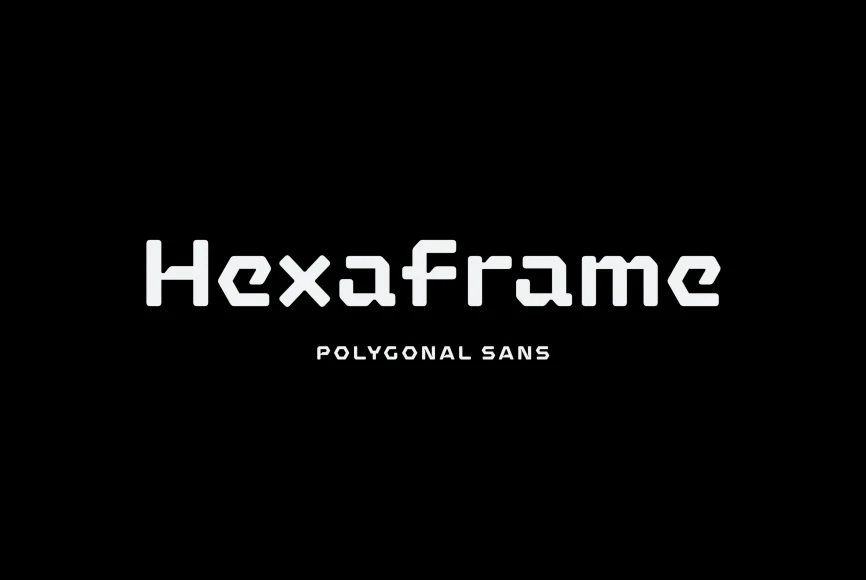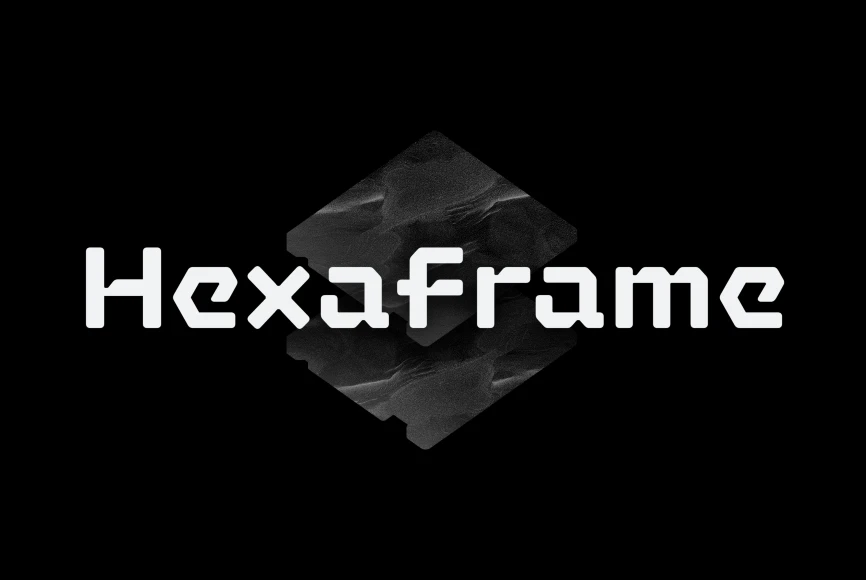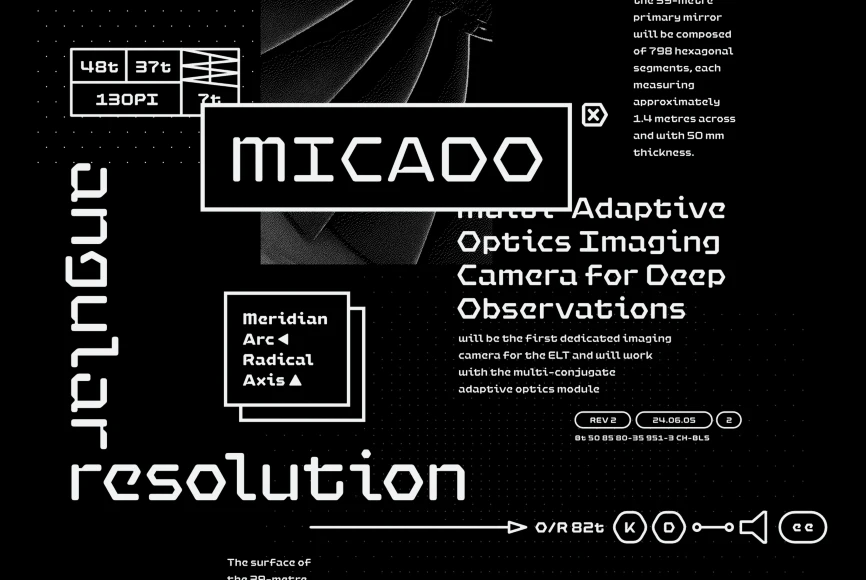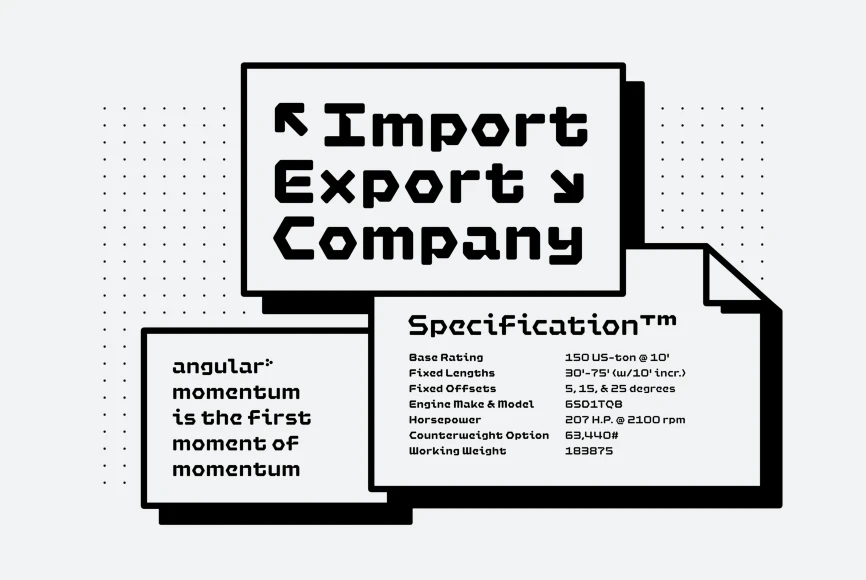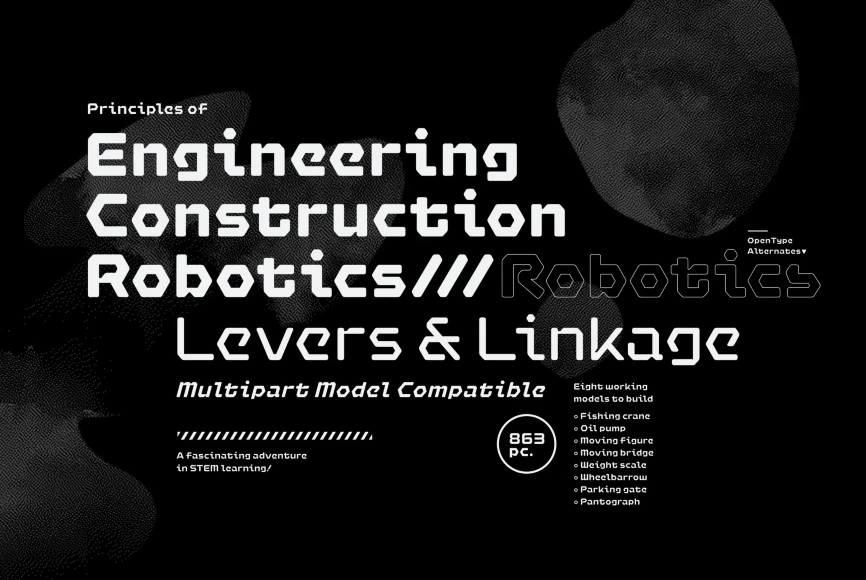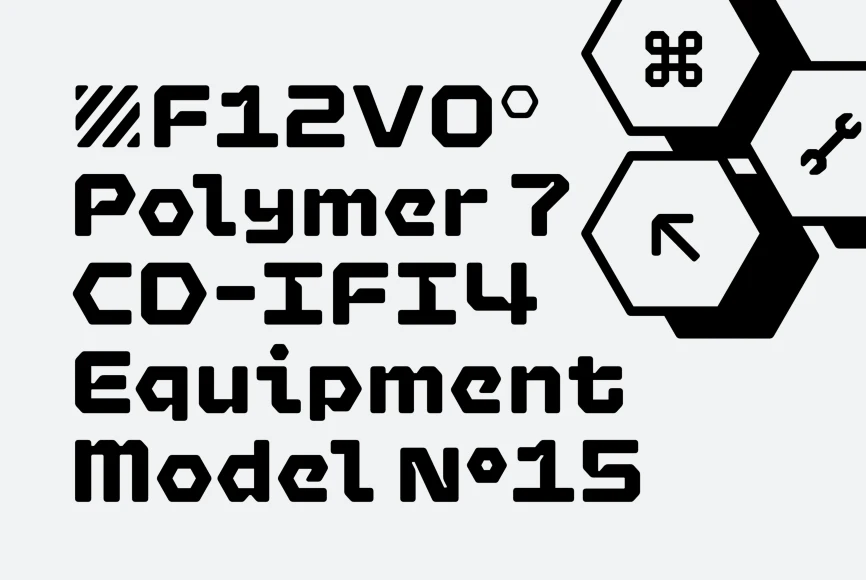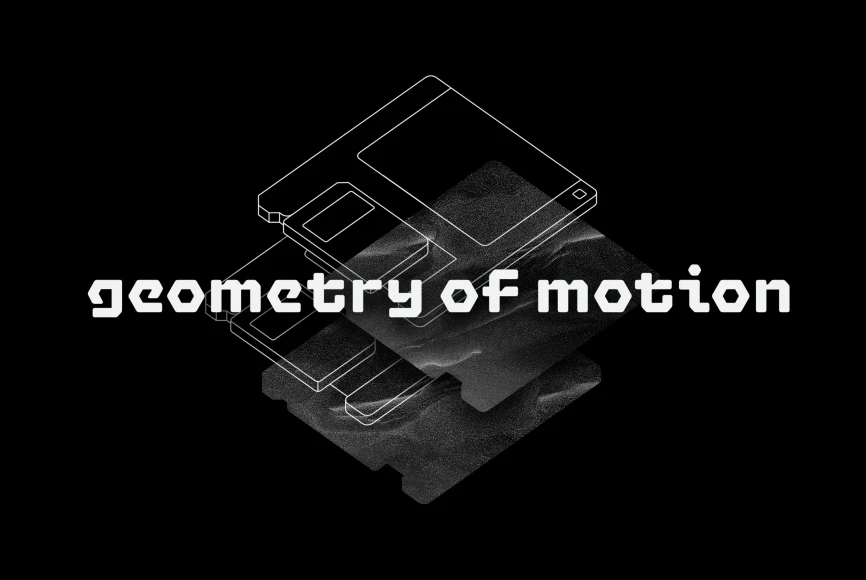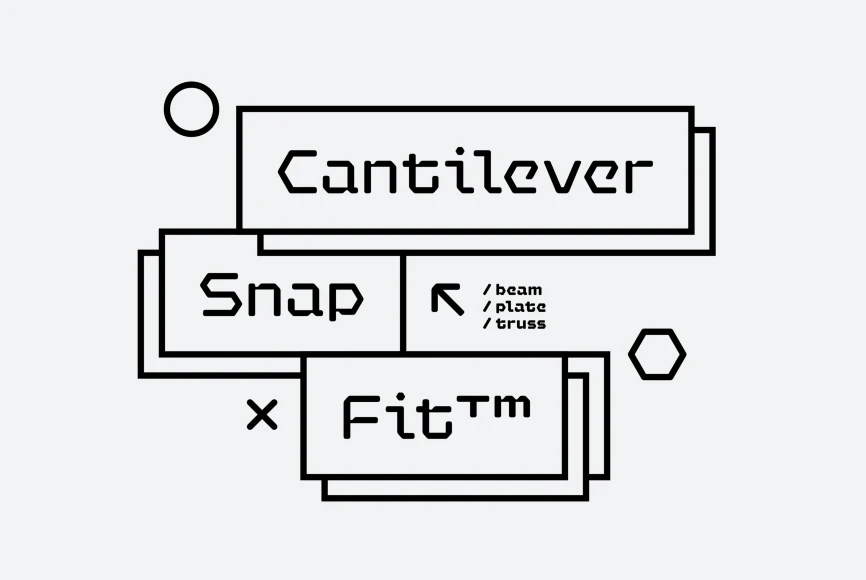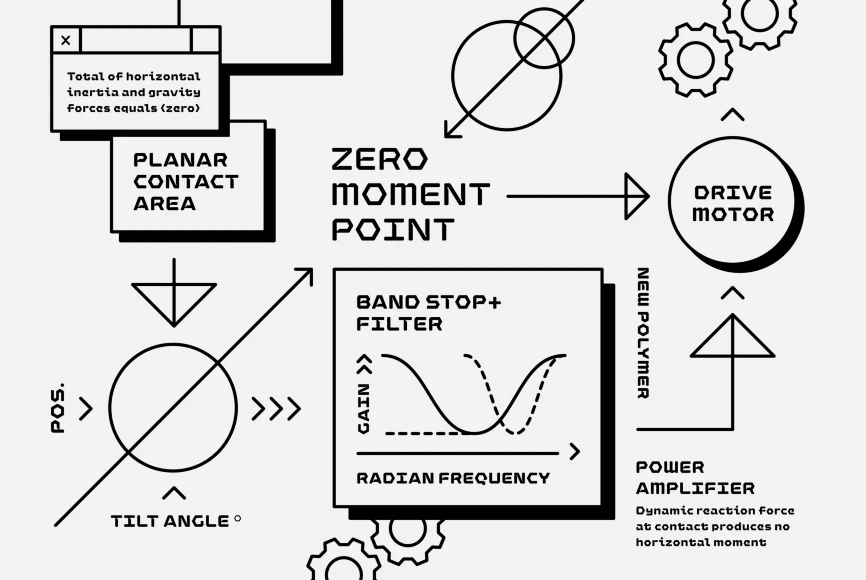
Hexaframe
Hexaframe Thin
Hexaframe Thin Oblique
Hexaframe Extra Light
Hexaframe Extra Light Oblique
Hexaframe Light
Hexaframe Light Oblique
Hexaframe Regular
Hexaframe Regular Oblique
Hexaframe Bold
Hexaframe Bold Oblique
Hexaframe Extra Bold
Hexaframe Extra Bold Oblique
Hexaframe Heavy
Hexaframe Heavy Oblique
Hexaframe CF evokes the awe and potential of of heavy machinery and robotics. Clad in tough polygons and rounded edges, Hexaframe is a perfect typeface for corporate identity, STEM toys, and user interface design. All typefaces from Connary Fagen include free updates, including new features, and free technical support.